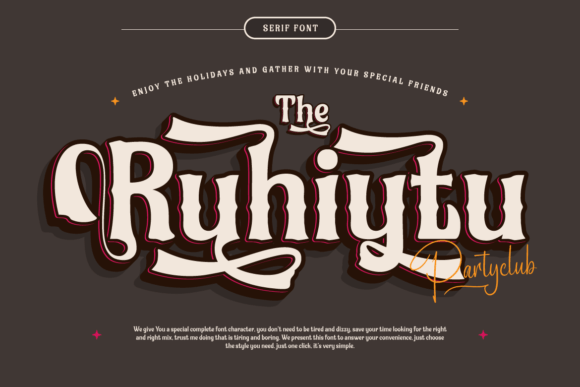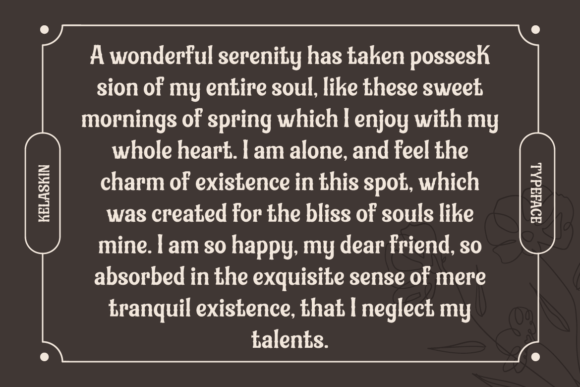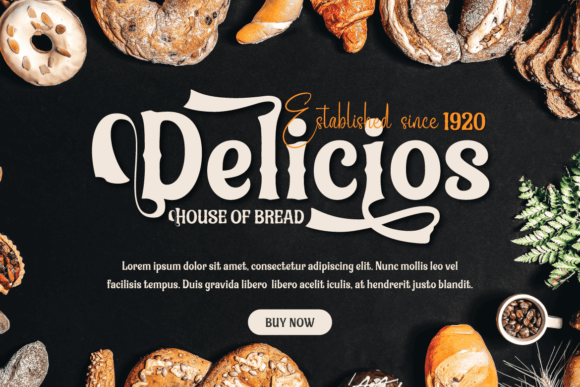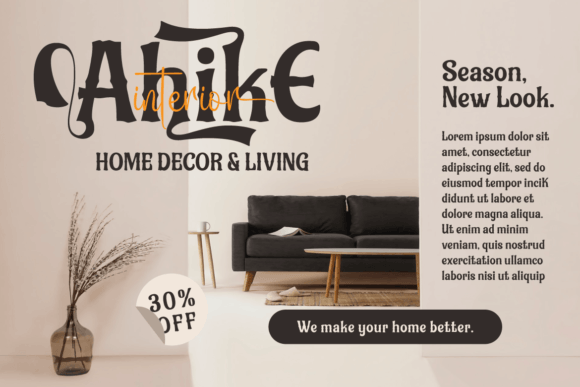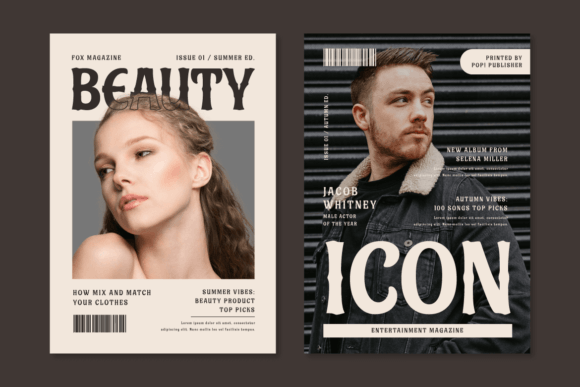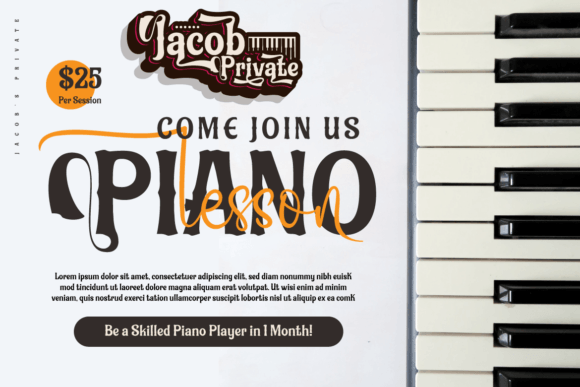
Introduction to Kelaskin Font Font
Fonts play a crucial role in design, and the Kelaskin Font font is a typeface that brings both character and versatility to any project. Whether you’re working on a branding project, a website, or a print design, the Kelaskin Font font offers a unique style that can elevate your work.
Introducing Kelaskin, a classic serif font that exudes elegance and sophistication.
Its timeless design is perfect for any project that requires a touch of old-world charm This font is versatile and perfect for a wide range of applications, from branding to editorial design.
Key Features of Kelaskin Font Font
Why Choose Kelaskin Font Font?
The Kelaskin Font font is more than just a typeface – it’s a design tool that helps you communicate your message with style and clarity. Its unique character set and versatile design make it suitable for a wide range of applications, from elegant invitations to bold headlines.
With its carefully crafted letterforms and balanced proportions, the Kelaskin Font font ensures readability and visual appeal across all mediums.
What makes Kelaskin Font font special?
The Kelaskin Font font stands out with its unique design, exceptional readability, and versatility across various design applications.